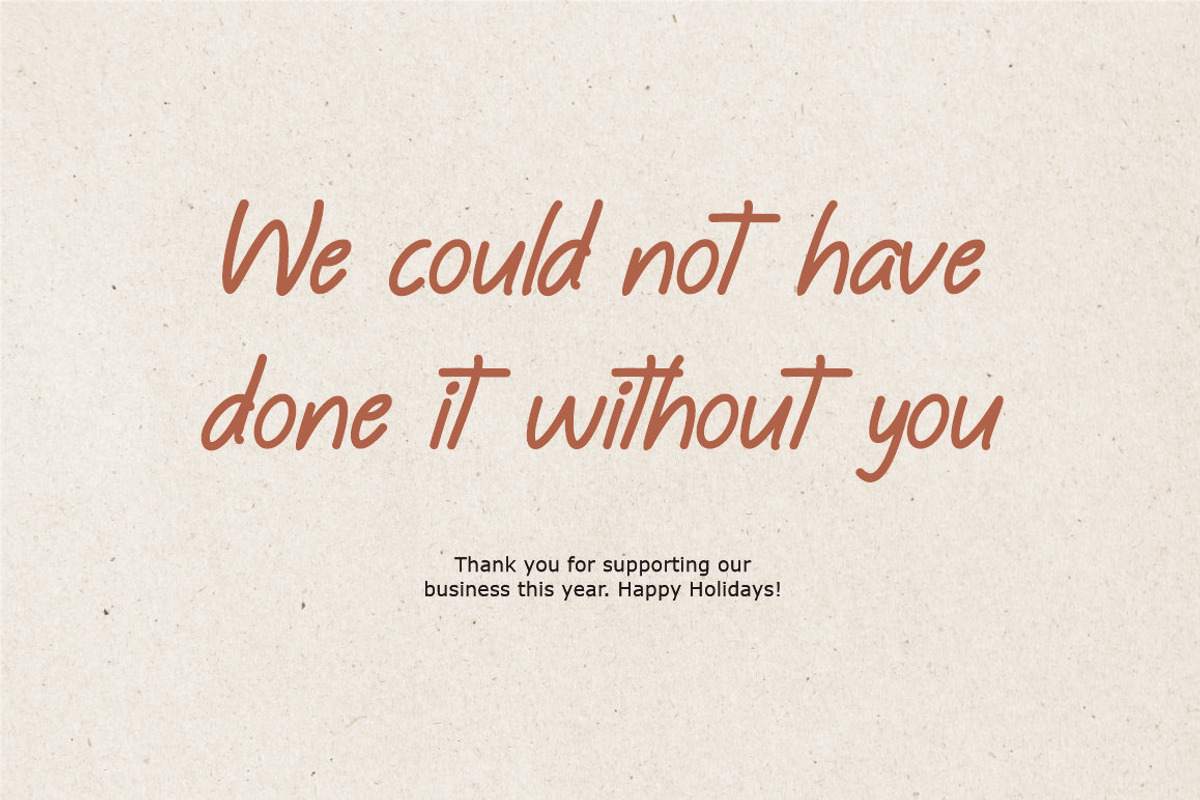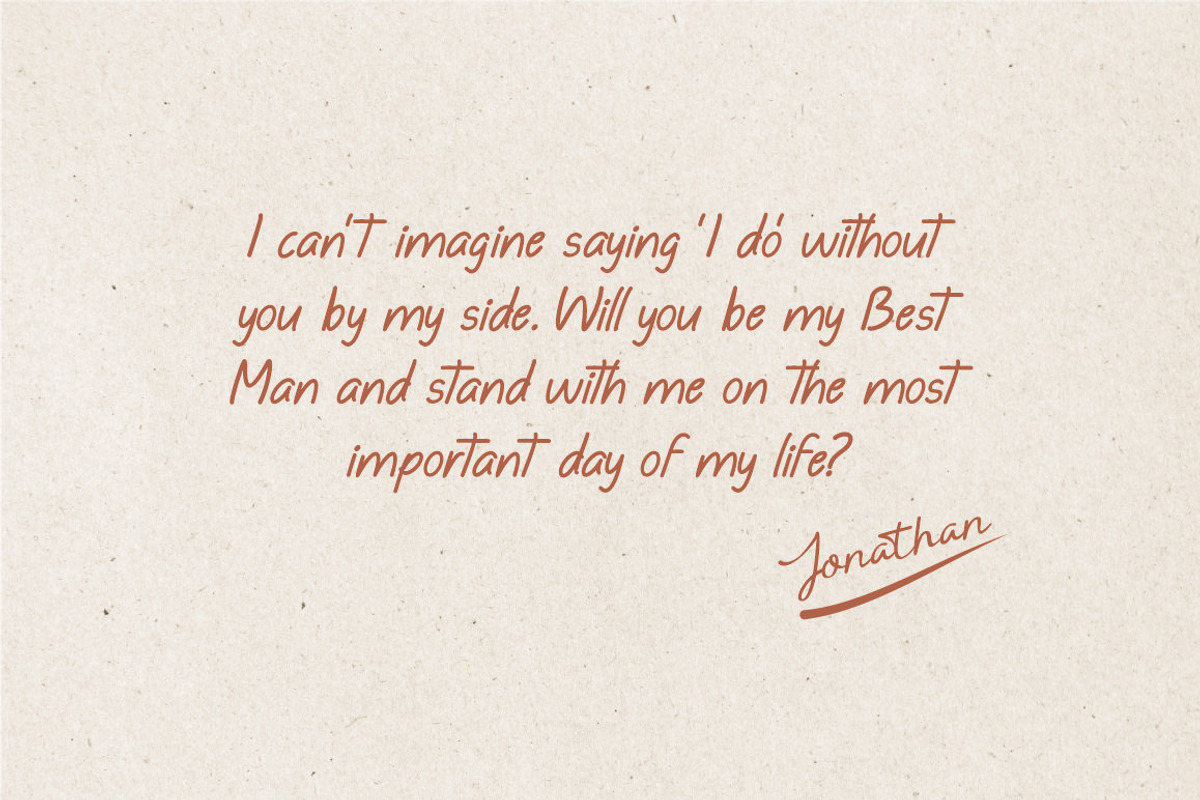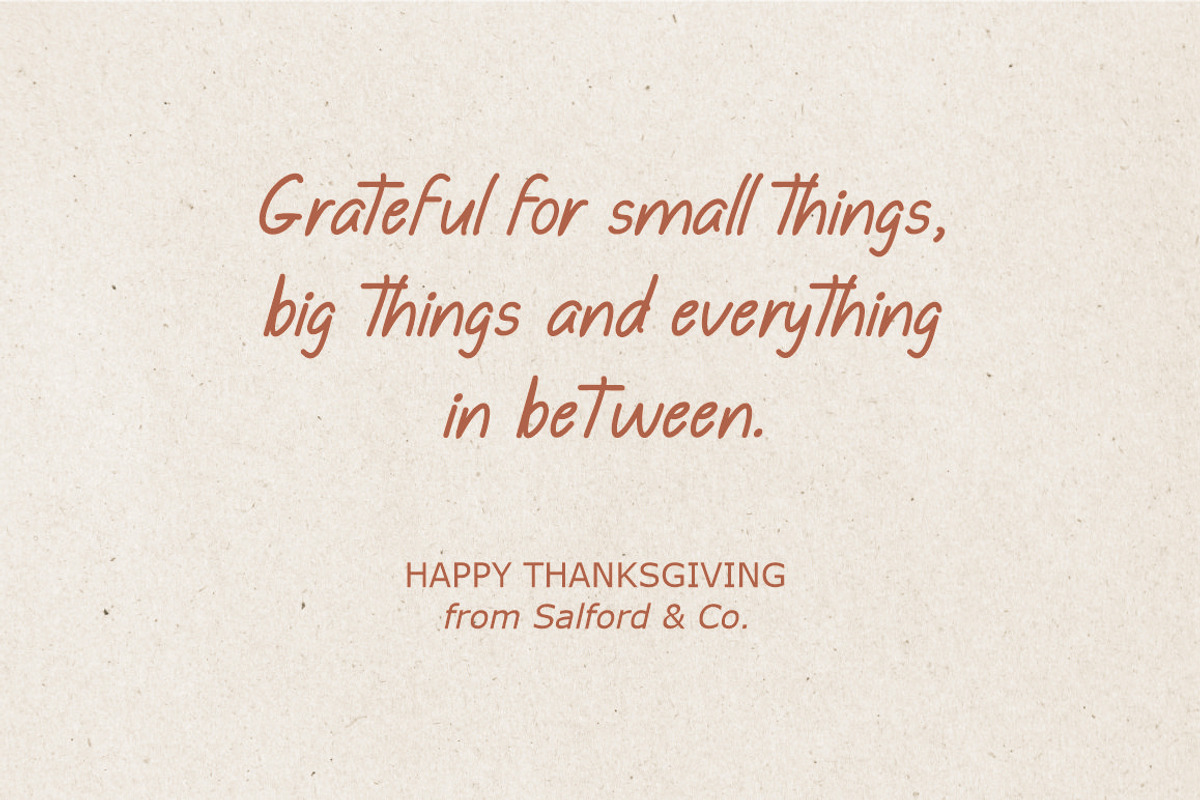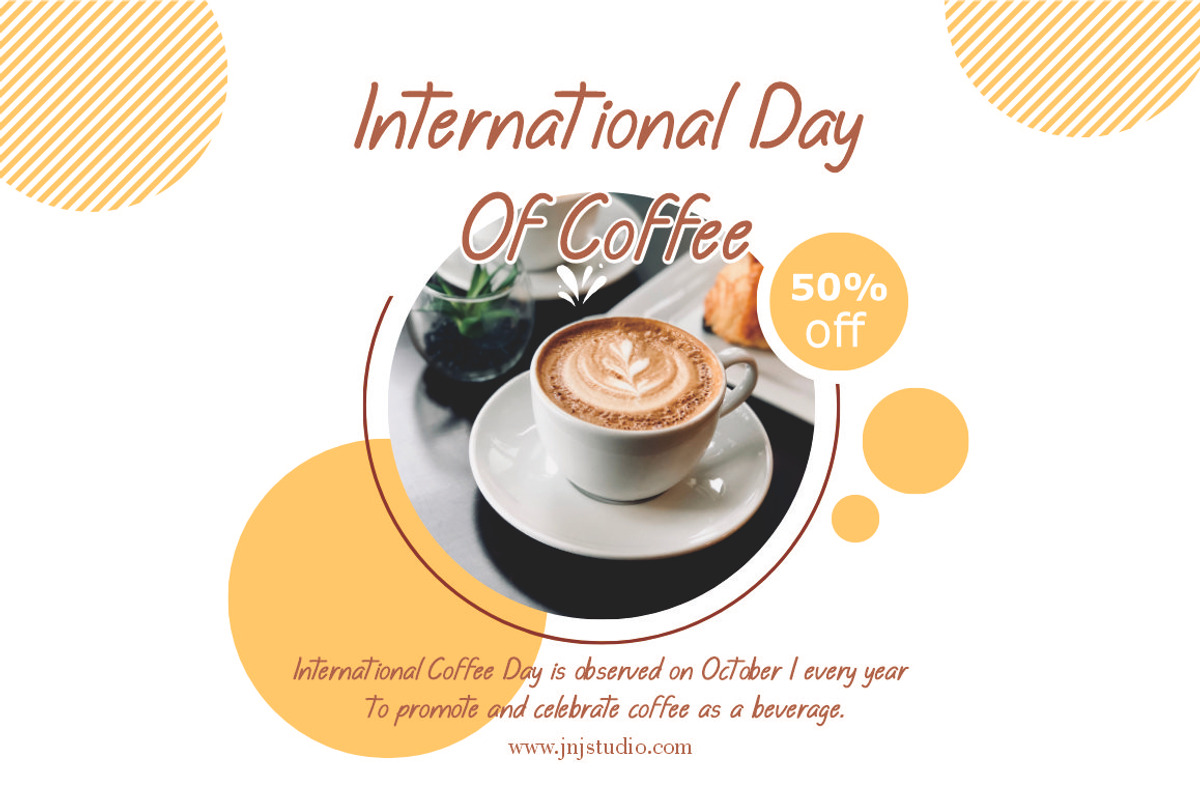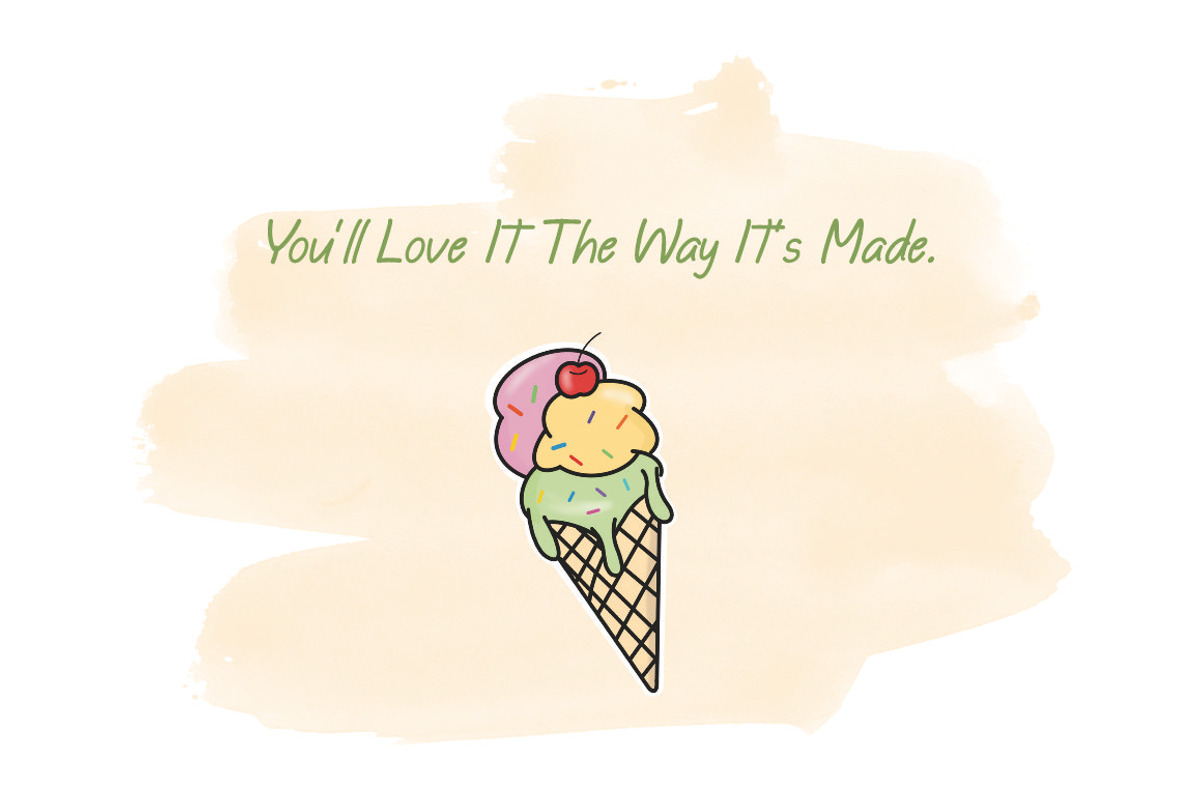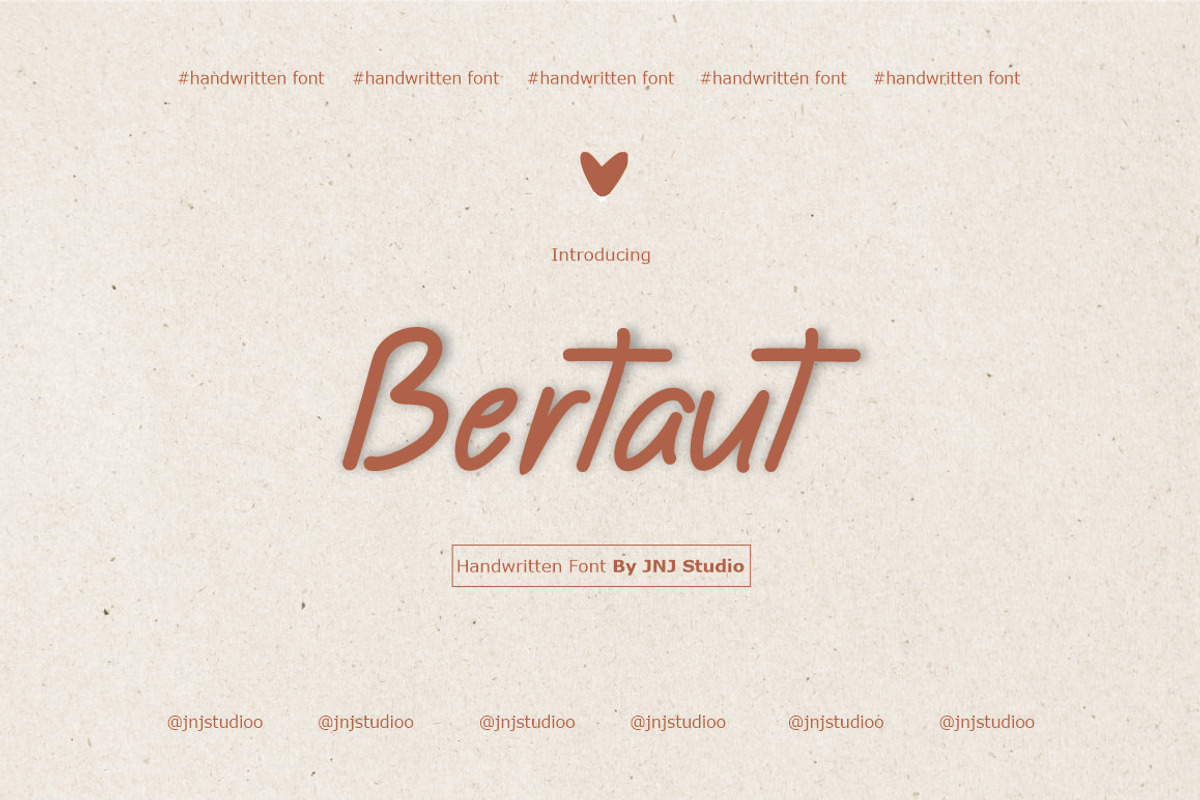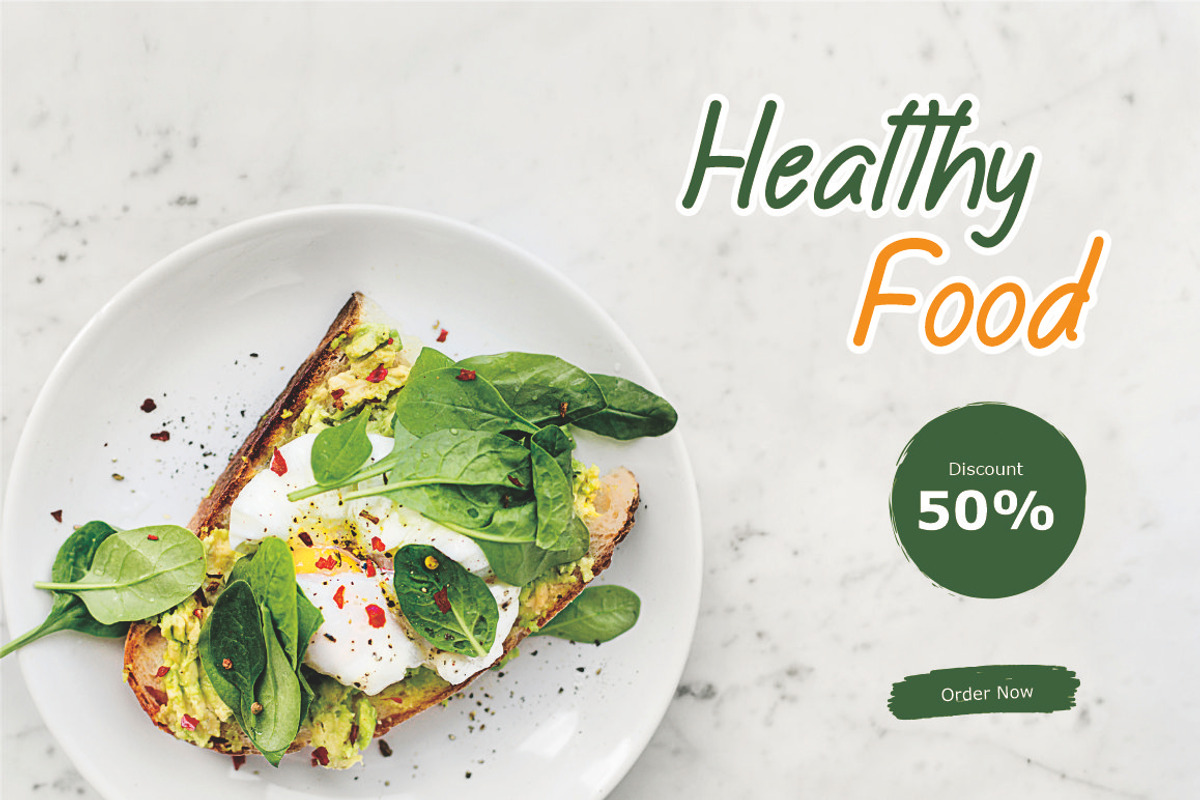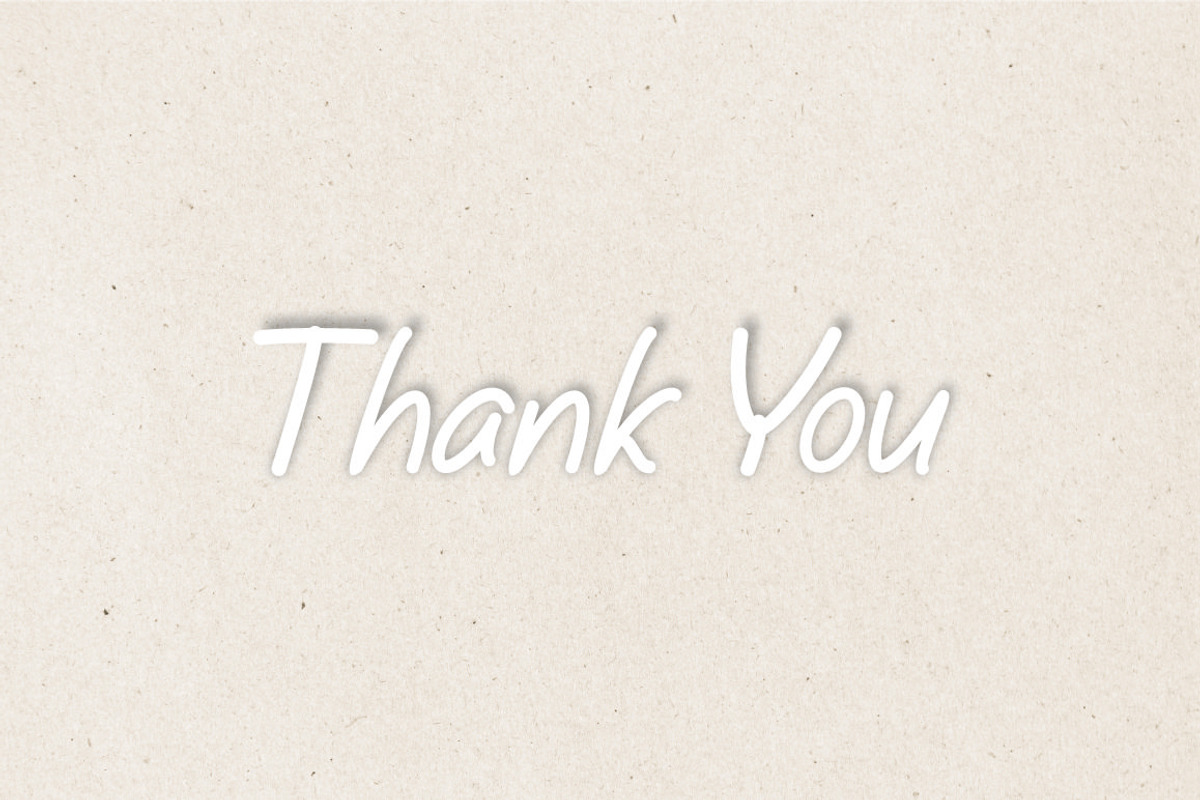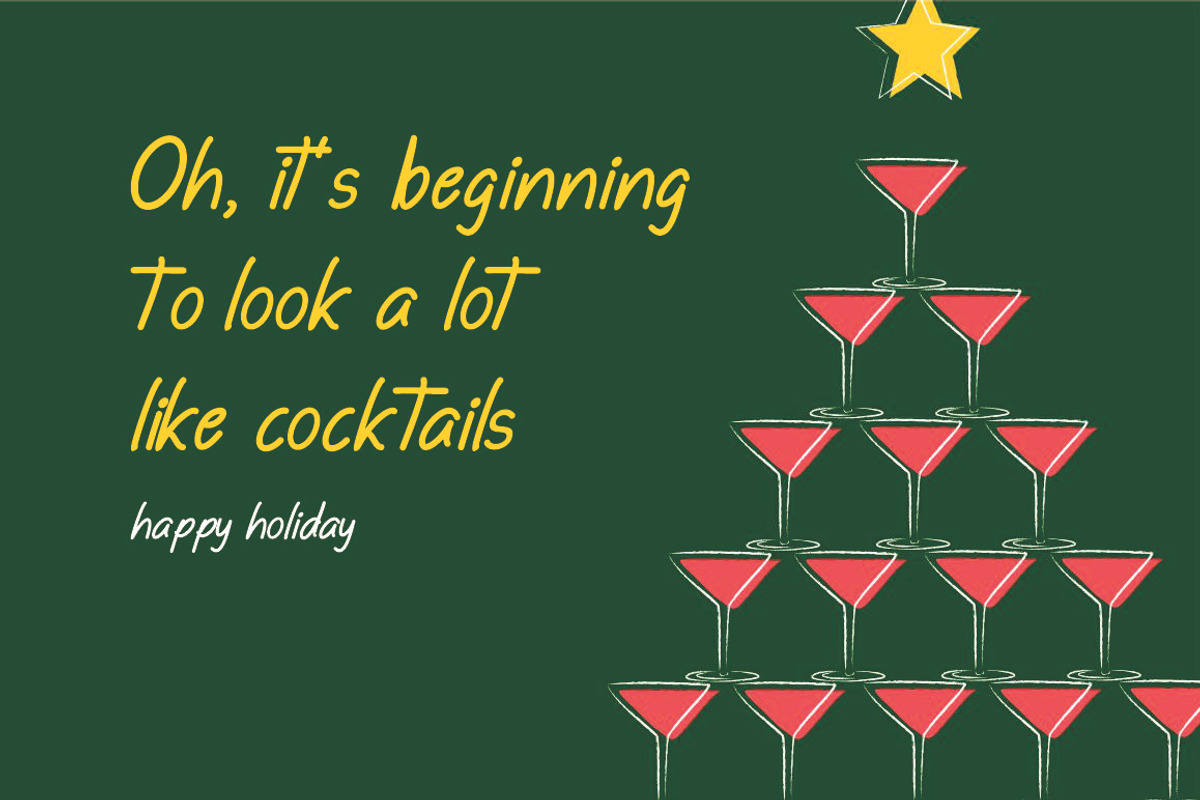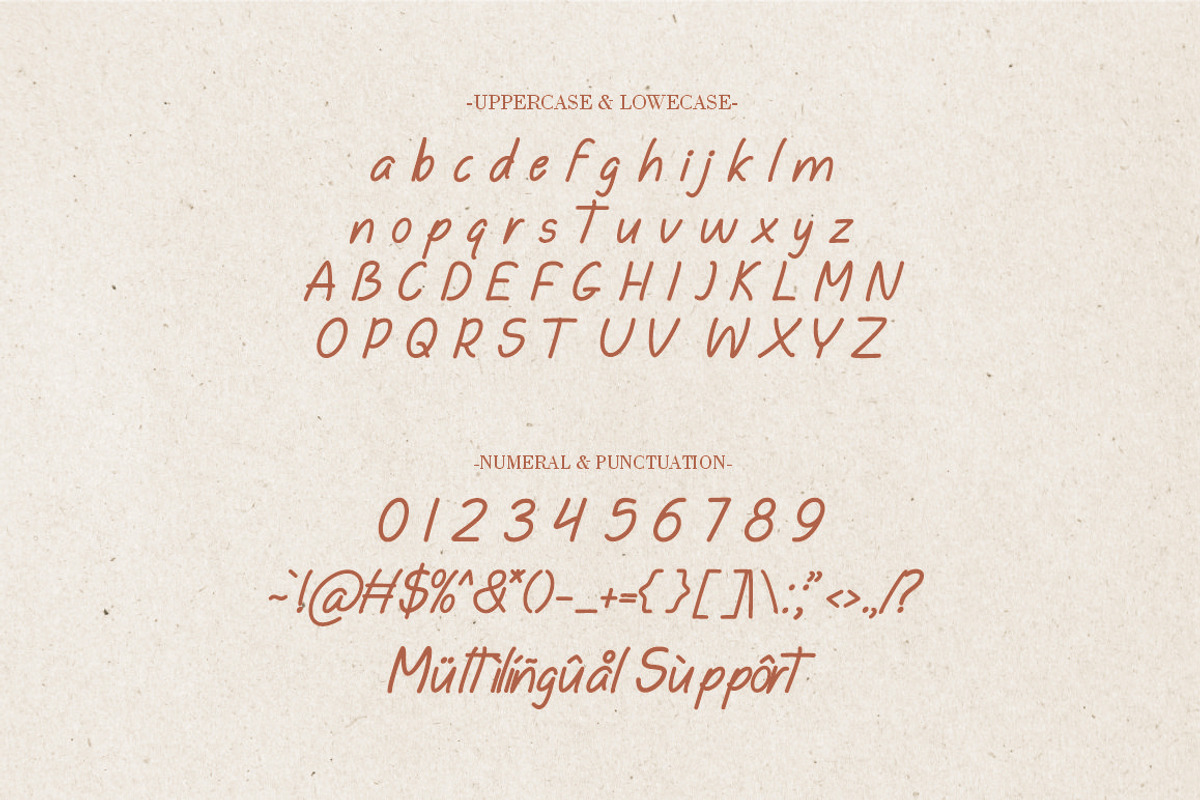
Bertaut Handwritten Font
Introducing "Bertaut" is a charming handwritten font that captures the essence of personal expression and heartfelt connection. Its flowing strokes and organic curves evoke a sense of warmth and sincerity, making it perfect for projects that require a personal touch. The font strikes a balance between casual elegance and readability, making it versatile for a variety of uses such as wedding invitations, greeting cards, logos, social media posts, and branding materials. Each letter is meticulously crafted to mimic the natural motion of handwriting, giving your designs a unique and authentic feel.